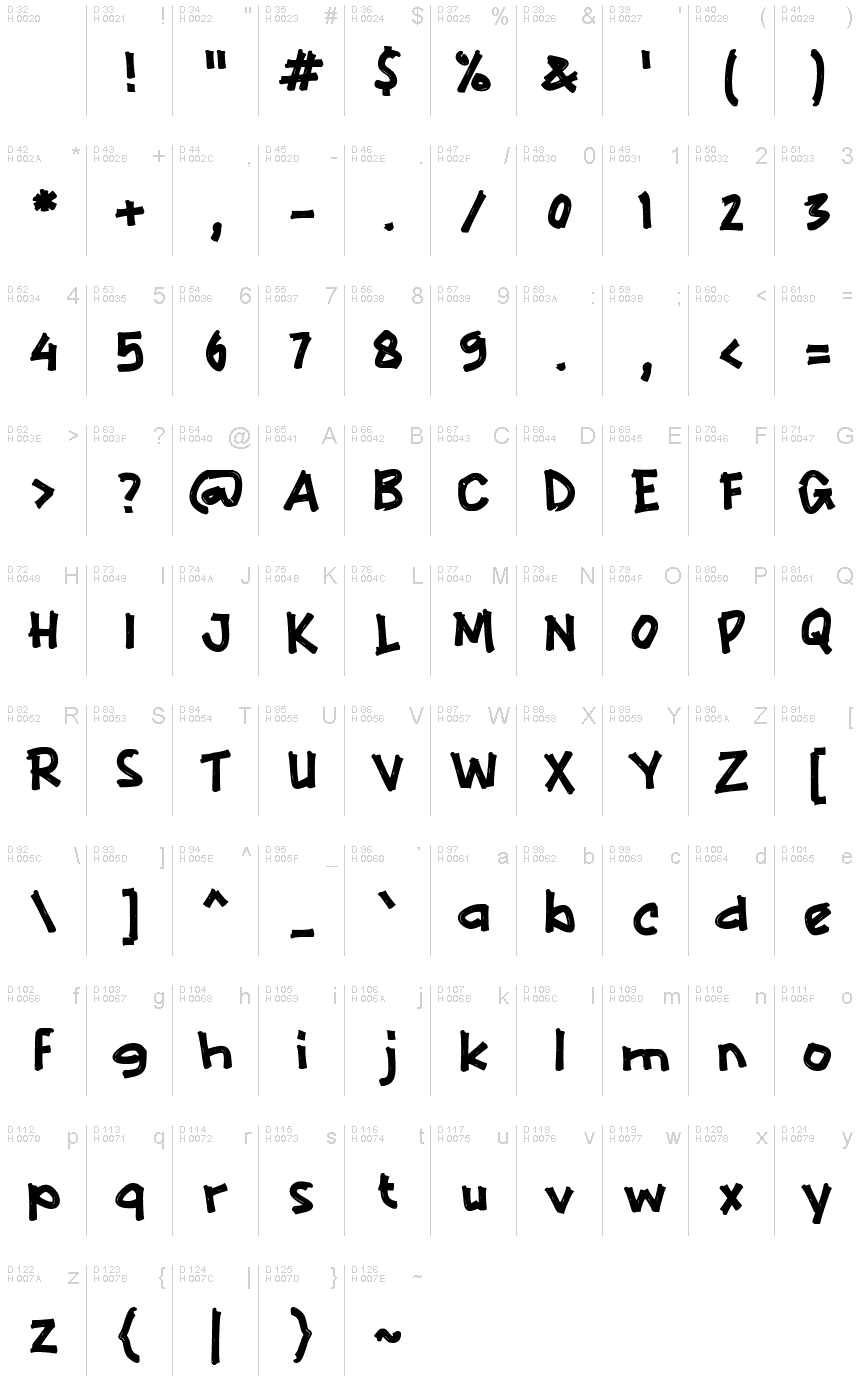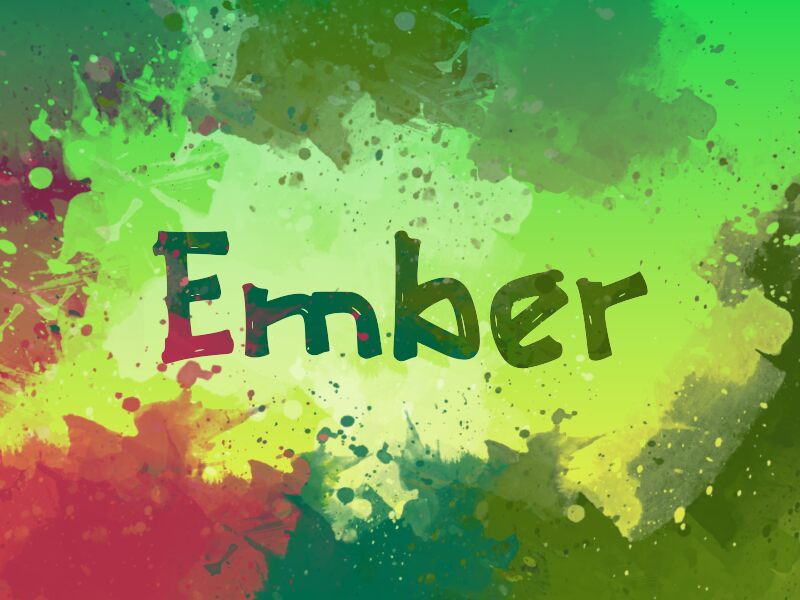
Ember
Ember, designed by wep, is a striking display font that packs a punch with its semi-bold weight. This versatile typeface is perfect for projects that require strong visuals and bold statements. Use it for eye-catching logos, headlines, posters, or even social media graphics. The thick strokes and unique letterforms create a modern look that will grab attention and leave a lasting impression. Ember's wide width makes it suitable for designs that need to fill space and demand attention. Whether you're designing for fashion, food, technology or travel industries - Ember will add the right amount of edge to your project.